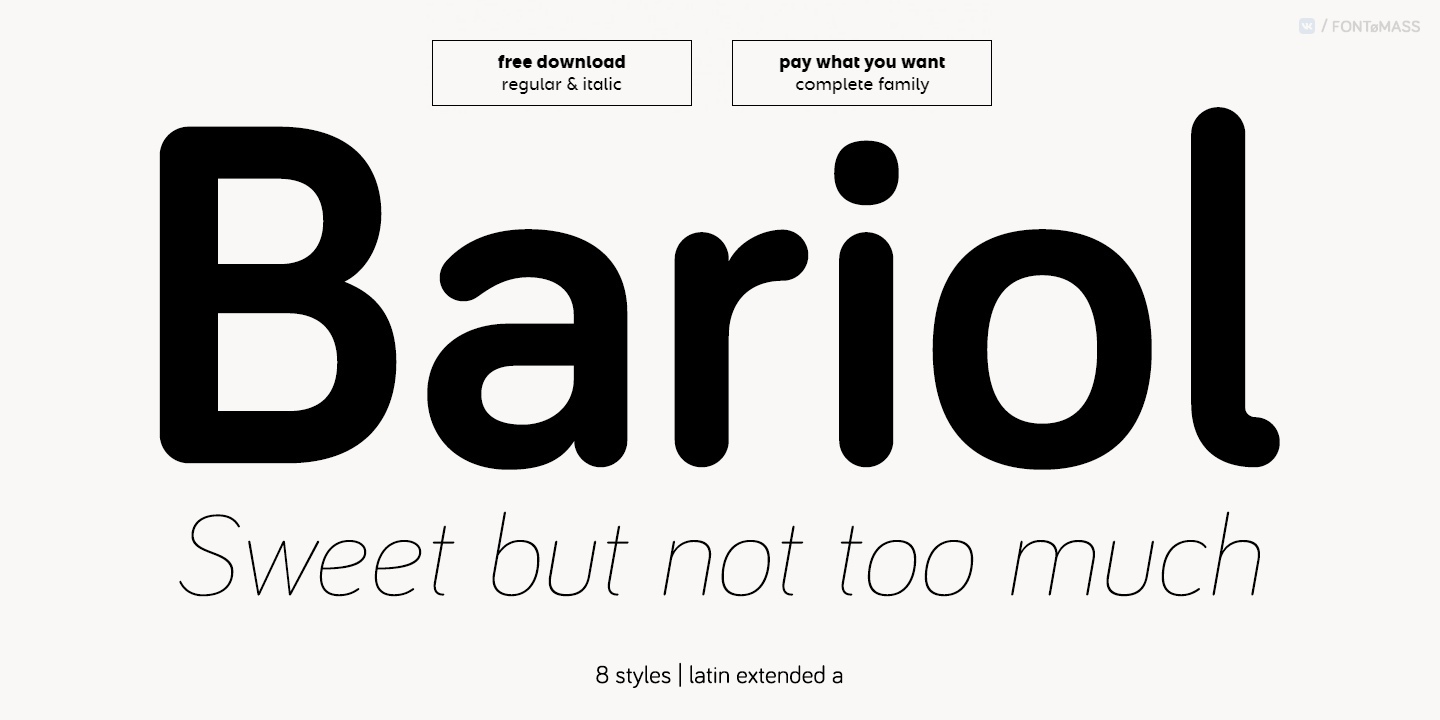
Bariol Font
This friendly rounded sans-serif typeface is perfect for playful branding, children's products, educational materials, casual restaurant signage, healthcare communications, mobile app interfaces, community organizations, and approachable corporate identity projects.
What makes this font exciting is its perfect balance of warmth and professionalism achieved through carefully crafted rounded corners and humanist proportions that create instant approachability. The soft, friendly character makes complex information feel accessible and welcoming, while maintaining the clarity and legibility essential for effective communication across all age groups and demographics.
The Bariol Font family includes light, regular, bold, and black weights, along with italic variations that provide comprehensive design flexibility for creating warm, inviting brand communications and user-friendly interface designs.
The endearing personality of Bariol Font emerges through its gentle curves and optimistic character that naturally puts viewers at ease. Each letterform displays the careful attention to human-centered design that makes information feel less intimidating and more engaging, creating positive user experiences. This empathetic approach makes it particularly effective for healthcare websites, children's learning apps, nonprofit organizations, and customer service materials requiring typography that reduces anxiety and encourages interaction.
Contemporary designers will find this font invaluable for projects requiring both professionalism and approachability. From daycare center branding to fitness app interfaces, from community bank communications to family restaurant menus, Bariol Font maintains its friendly character while delivering practical functionality. The font's comprehensive character set includes multilingual support and OpenType features that ensure global accessibility, making it perfect for inclusive design projects that prioritize user comfort and positive emotional response across diverse audiences and communication contexts requiring genuine human connection.